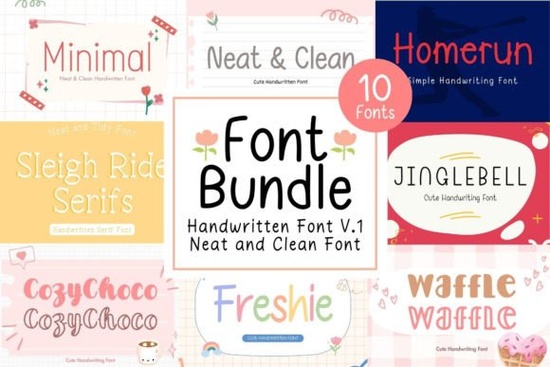
Having the right handwritten font can save your design from looking generic or overly formal. The Neat & Clean Handwritten Font Bundle V.1 gives you 10 tidy, playful typefaces in one package covering everything from digital planners and GoodNotes notebooks to social media graphics and print-on-demand products.
What fonts are actually included?
This bundle contains 10 distinct handwritten styles that range from neat and minimal to slightly whimsical. Each one keeps a clean baseline, which means they stay readable even at smaller sizes. You won't get the messy, hard-to-decode look that some script fonts suffer from.
Here's what you can expect from the collection:
- Neat, legible letterforms that work at both large display and small body sizes
- Consistent spacing and alignment no letters floating off the baseline
- A mix of playful and polished styles for different project moods
This flexibility is especially helpful for back-to-school projects. You could design a worksheet in Canva, make matching stickers in Procreate, and build a study planner in GoodNotes all with the same font set keeping everything visually consistent.
Who would get the most out of this bundle?
This collection is a solid fit for several types of creators:
- Digital planner designers who need clean fonts that don't clutter layouts
- Print-on-demand sellers looking for friendly typography for mugs, shirts, and tote bags
- Small business owners creating menus, flyers, packaging, or signage
- Teachers and educators building worksheets, classroom labels, and certificates
- Social media managers who want a personal, approachable feel in their graphics
- Journaling and note-taking enthusiasts who want variety beyond standard system fonts
What types of projects work best with these fonts?
Clean handwritten fonts are more versatile than people often expect. Here are some common uses:
- Kid products toy packaging, children's book titles, birthday invitations
- Fashion and boutique branding clothing tags, lookbook layouts, logo concepts
- Journals and planners digital and paper planners, bullet journals, study notes
- Advertisements sale banners, email headers, social media ads
- Teaching materials flashcards, bulletin boards, handouts, and awards
If you like mixing styles in a single project, pairing these neat fonts with a bouncy, energetic script or a romantic handwritten style can give your layouts more depth. For lifestyle or food branding, a casual morning-inspired script or warm, cozy extras complement the clean look nicely. And for projects that need a heartfelt touch like wedding invitations or anniversary cards an emotional script font pairs well alongside these tidy letterforms.